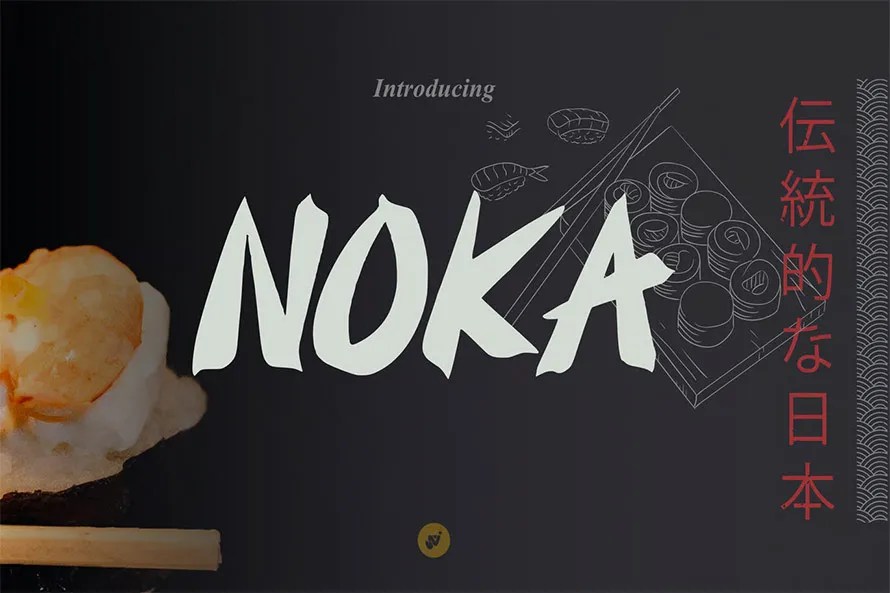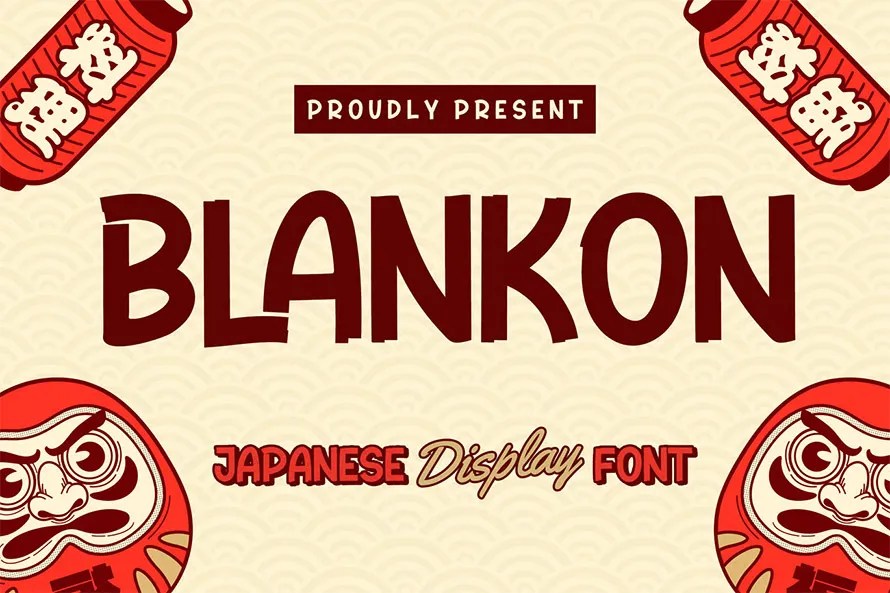
Another huge hand-picked collection of Japanese-style fonts. Japanese fonts are perfect for cool, cultural, and stylish designs. The Japanese-inspired fonts crafted with exceptional taste, seamlessly merging ethnic and cultural elements into each glyph. By using these fonts you can add a bold Japanese vibe to your designs that will make your projects stand out!
These japanese-inspired fonts are perfect for logos, posters, flyers, and all kinds of traditional and aesthetics work. These fonts give your work a distinctive feel with their bold strokes, red dot shapes, and clean lines, which are characteristic of Japan.
Japanese-style fonts instantly convey an authentic Japanese vibe, making them ideal for sushi bars, ramen shops, and Asian cafes. These fonts are used in many well-known Japanese brand logos to convey elegance and tradition.
Additionally, you can incorporate them into event banners, flyers, or festival posters to add some Japanese culture while making them visually appealing and entertaining.
Mawjusti Korean Style Display Font
The “Mawjusti Korean Style Display Font” is a typeface designed to evoke the aesthetic of modern Korean typography. It often features clean, minimalist lines with subtle curves and unique character forms. The font’s strokes may vary in thickness, giving it a playful yet sophisticated feel.
Kumiko JapaneseFont
Kumiko is a fun handwritten font with a casual, playful vibe that feels natural and full of personality. Its smooth strokes and rounded edges give off a friendly, approachable look perfect for cute branding, packaging, social media posts, posters, or any project that needs a cheerful and stylish touch.
Jasuke Japanese Inspired Font
This font is ideal for enthusiasts of Japanese culture, as well as for those involved in Japanese restaurants, clothing brands, arts, and businesses associated with Japanese culture.
Kimochi Sans Serif Japanese Style Font
Kimochi Sans Serif Japanese Style is a bold and modern sans serif typeface inspired by traditional Japanese aesthetics. Its clean geometric lines and subtle cultural flair make it perfect for projects that aim to blend Eastern elegance with contemporary design.
Konpe Speed Racing Car Font
Konpe Speed Font is a bold and authentic display font. The font is suitable for any branding project like poster, logo, sport, and many more. Outstanding in a wide range of contexts.
Ochida Japanese Font
Ochida is a bold and artistic display font, inspired by the spontaneous beauty of random, quick-cut paper pieces coming together to form stunning letters.
Shidoe A Display Typeface
Introducing Shidoe, a bold and playful display typeface that brings character and creativity to your design projects. With its chunky, fluid letterforms and quirky personality, Shidoe is perfect for designers who want to make their work stand out with a fun yet impactful vibe.
Tanako Gaichi Japanese Brush Font
Want to add a bold Japanese and Korean vibe to your designs? Tanako Gaichi is the perfect font to make your projects stand out! With its sleek and modern style, it’s ideal for branding, posters, social media, and any creative work related to Japanese restaurants, samurai themes, Japanese logos, Korean products, or cultural events. Plus, with 50+ ligatures, your text will always look unique and captivating.
Jamino Modern Minimal Japanese Font
Jamino is a powerful, modern serif font inspired by traditional Japanese aesthetics.
Gareda Japan Font
Gareda Font is a best and authentic display font. This font can be used for your various needs. We provide various themes and font styles. visit our profile to get a wide variety of themes and different font styles you need.
Miyora Handmade Display Font
Miyora is a handmade display font. With bold stroke, fun character with a bit of ligature and alternates. To give you an extra creative work. Miyora font support multilingual more than 100+ language.
Crimson Dawn Japanese Inspired Display Font
When sharp geometry meets cultural aesthetics, we present CRIMSON DAWN. A bold Japanese-inspired display font that fuses modern design principles with the spirit of tradition, Crimson Dawn radiates strength, discipline, and fearless energy.
Shinzoku Brush Japanese Font
Unleash bold expression with Shinzoku Brush, a high-impact graffiti-meets-kanji typeface inspired by Japanese calligraphy and urban street art. Perfect for posters, logos, music visuals, this brush font blends edgy strokes with energetic motion. Bring raw power and cultural fusion to your creative projects.
Death Mist Font
Death Mist is not just a font its an atmosphere. With sharp, aggressive letterforms inspired by Japanese design and wrapped in a blood-red, gritty aesthetic, it’s made for projects that demand raw energy and unapologetic drama. Perfect for horror movie titles, heavy metal album covers, game logos, or any artwork that needs to hit hard and leave a mark, Death Mist delivers intensity in every curve and cut.
Derosun Font is unique . Ready to use for your design like labeling, movie sceen, poster, movie title, gigs, album covers, logos, and much more.
Ryasko Japan Display Font
Ryasko Font is unique . Ready to use for your design like labeling, movie sceen, poster, movie title, gigs, album covers, logos, and much more.
Takisumo Font
Takisumo is a font that is inspired by the Japanese style, perfect for any Asian theme of design & promotion to create spectacular designs!